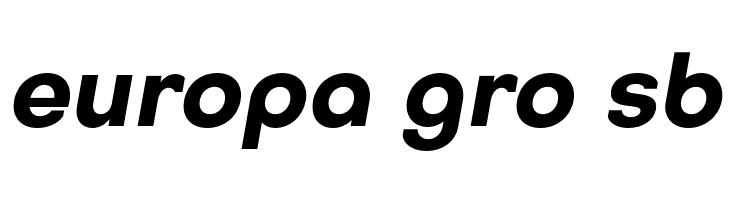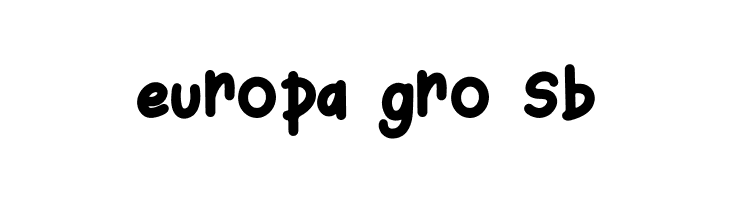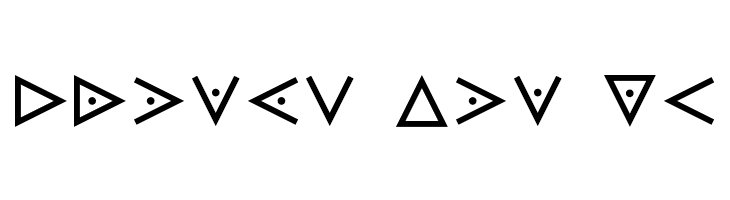
A bold, oblique typeface with a modern and dynamic style.
A playful, hand-drawn font with rounded, bubbly characters.
A cryptic, geometric font with an ancient, mysterious aesthetic.
A playful, bamboo-inspired font with segmented, rounded characters.
A bold, modern sans-serif font with a clean and assertive appearance.
A bold, semi-condensed font with a modern and robust design.